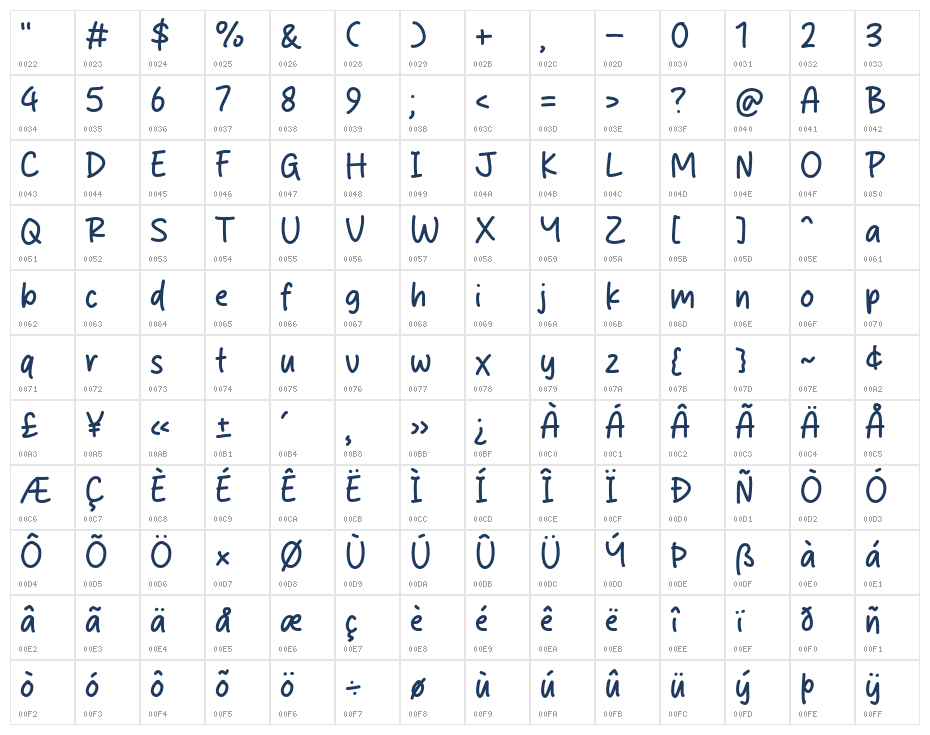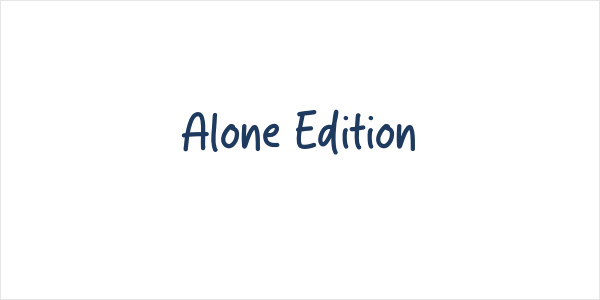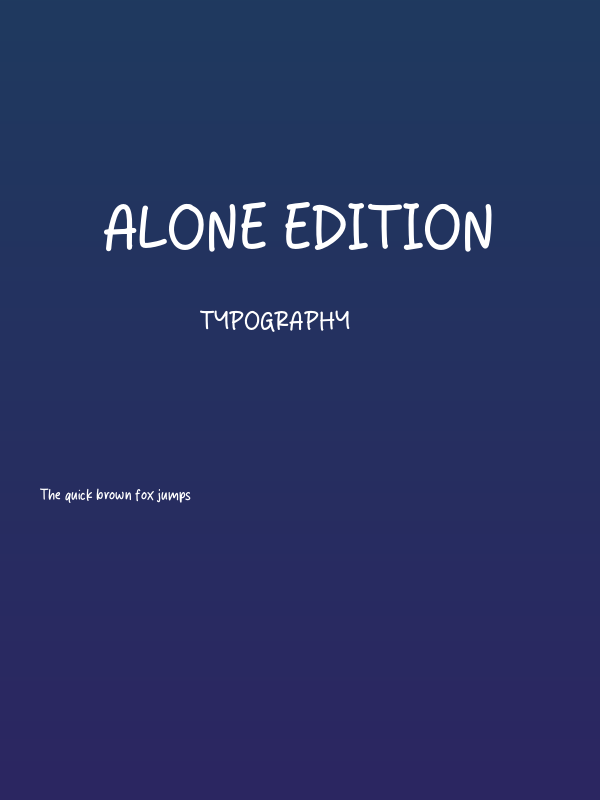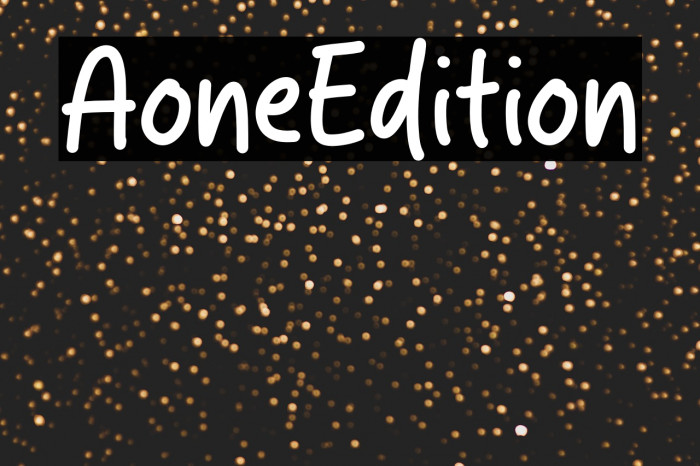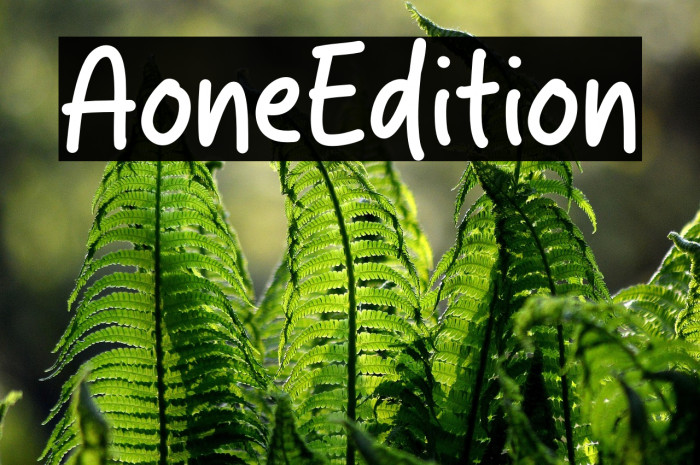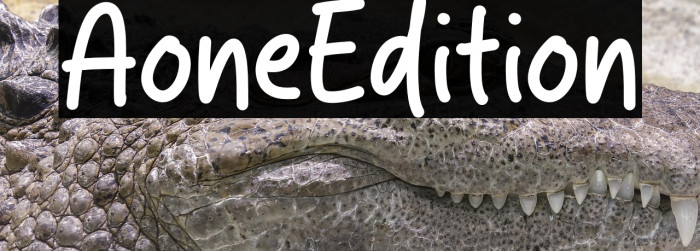
Alone Edition Font
Alone Edition Description
A casual, handwritten style font with rounded, playful characters.
| Use Case | Children's books, casual branding, invitations, informal signage |